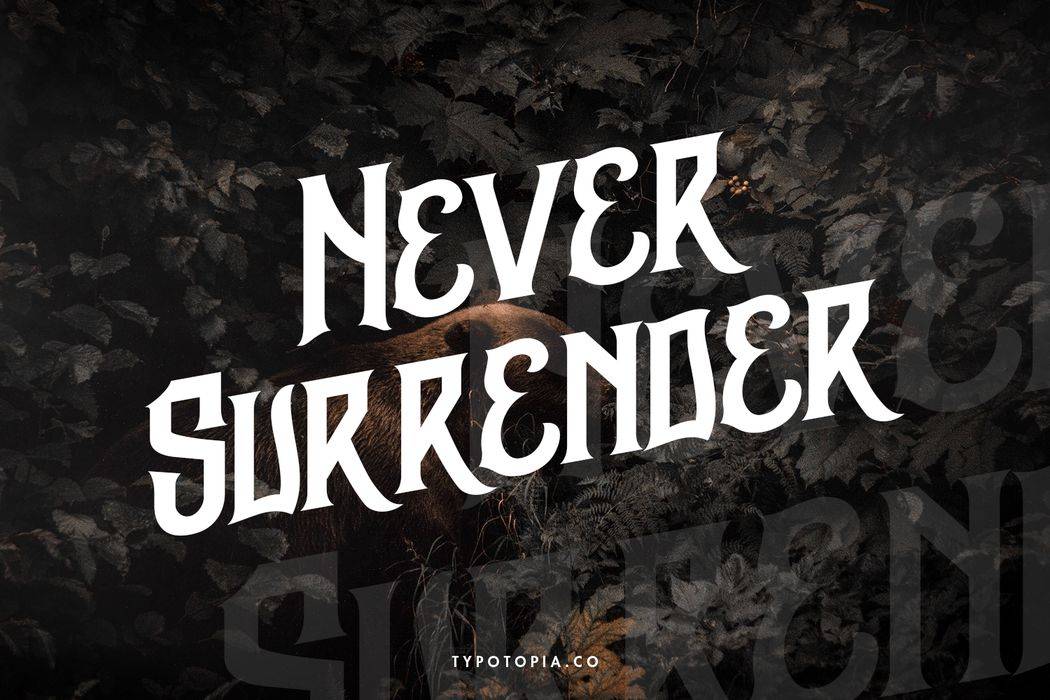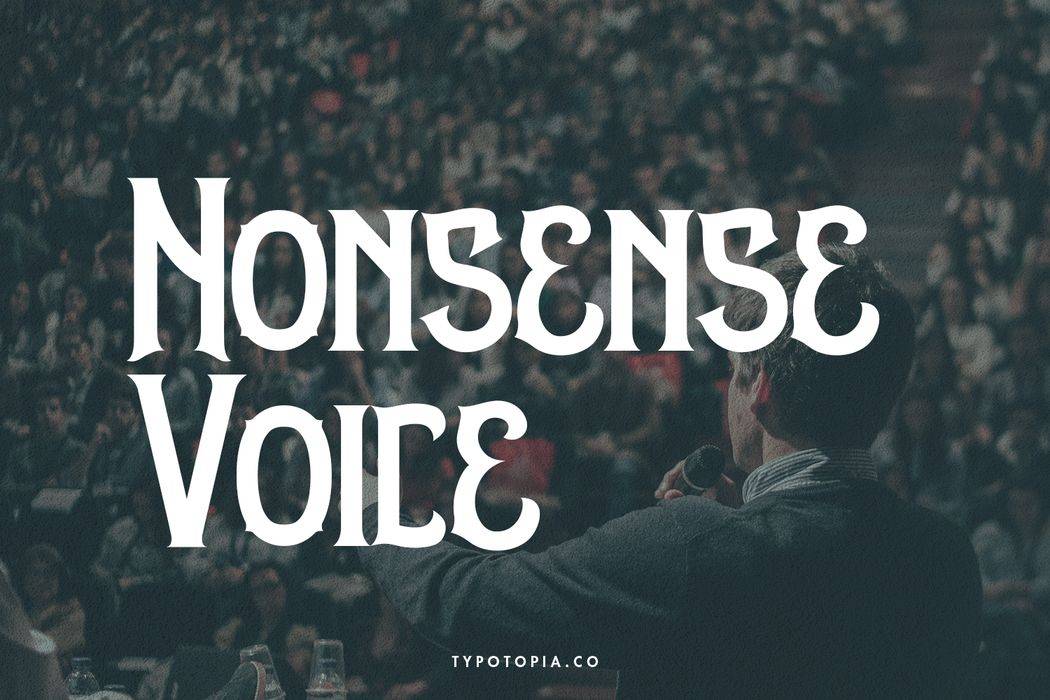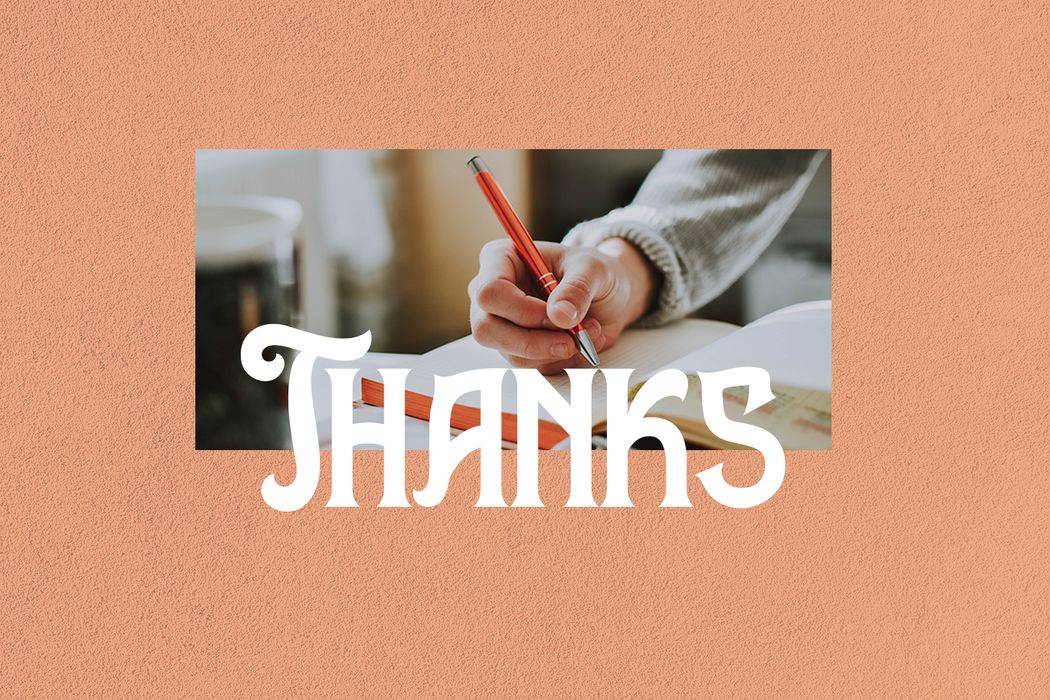
Mahalo is a bold, decorative serif font with a vintage flair, featuring intricate and playful strokes that give it a unique, stylized character. Its compact letterforms and strong vertical emphasis make it perfect for eye-catching headlines, logos, and branding that seek to convey a distinctive, artistic, and slightly nostalgic feel.
Mahalo Font
About Mahalo Font